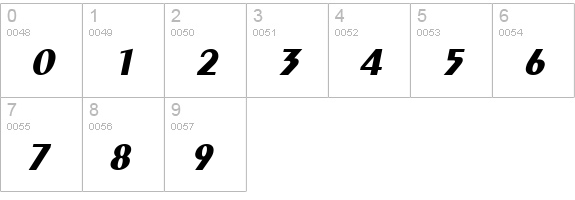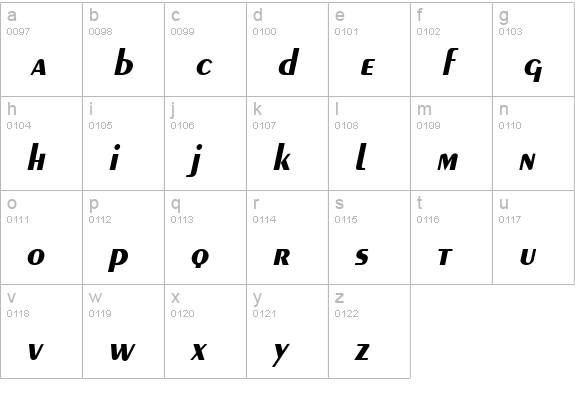
Penyae Bold Italic is a strong, high-contrast, italic variant in the Penyae typeface family \xE2\x80\x94 well suited to headlines, attention-grabbing titles, and strong calls-to-action.
Introducing Penyae Bold Italic, a stunning and versatile font that exudes elegance and sophistication. With its bold and slanted letterforms, this font commands attention and adds a touch of modernity to any design project. Penyae Bold Italic is perfect for headlines, logos, branding materials, and any design that needs a strong and stylish typographic presence. Its unique combination of boldness and slant creates a captivating visual impact, making your text stand out from the crowd. But what truly sets Penyae Bold Italic apart is that it is completely free. Yes, you read that right! This remarkable font is freely available to download at FontsMarket.com. Now, you can elevate your designs without breaking the bank. Whether you're a professional designer or a passionate hobbyist, Penyae Bold Italic is the ideal choice to express your creativity. Its sleek and contemporary design will effortlessly enhance any project, giving it a touch of sophistication and class. So why wait? Download Penyae Bold Italic now and unlock a world of possibilities. With this free font, you can create breathtaking designs that leave a lasting impression. Don't miss out on this amazing opportunity to elevate your typographic game. Get your hands on Penyae Bold Italic today, exclusively at FontsMarket.com.